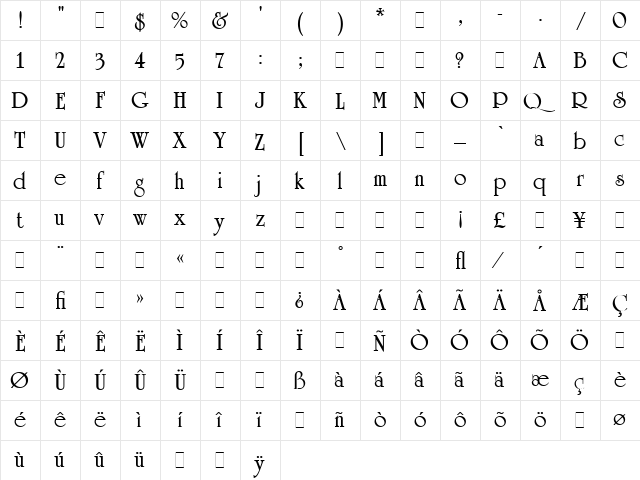
University Roman Bold LET Regular
University Roman Bold LET offers clean, dependable letterforms without strong stylistic allegiance, making it a practical choice for designers who need flexibility. The heavy weight commands attention and anchors typographic hierarchies.